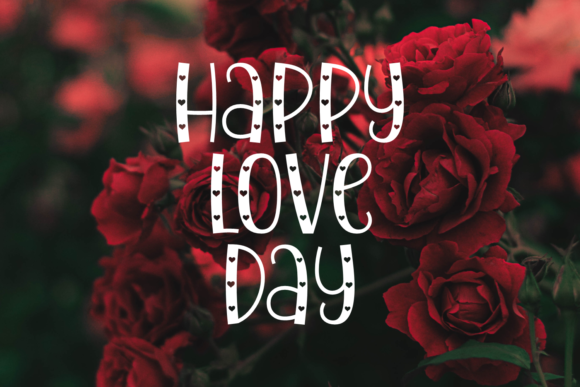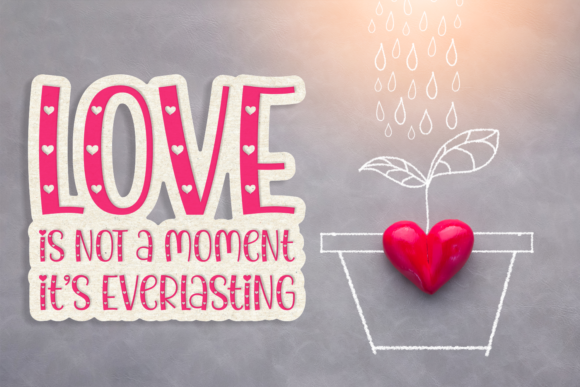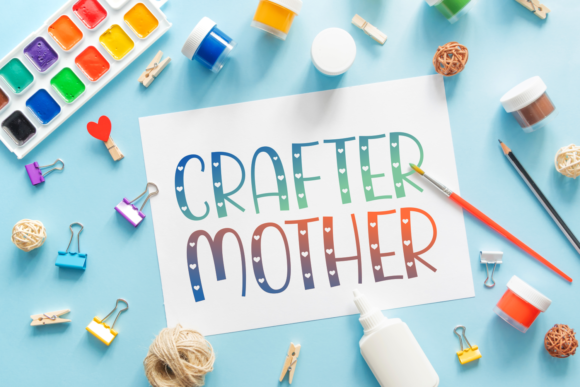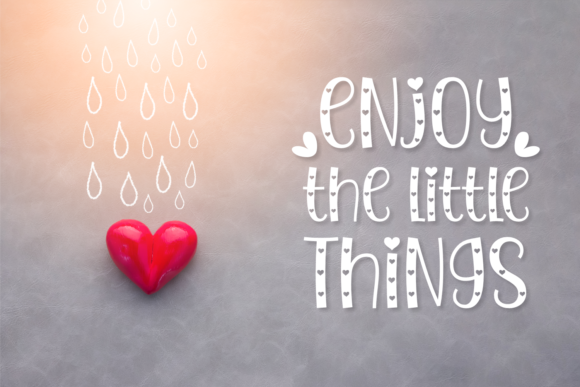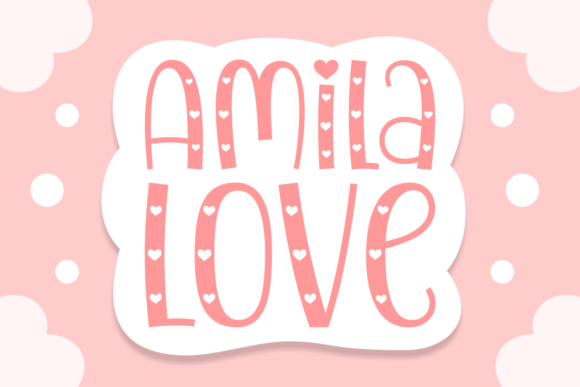
Introducing the Amila Love Font: A Sweet Addition to Your Design Projects
Are you looking for a font that will add a touch of love and sweetness to your design projects? Look no further than the Amila Love Font! This adorable display font is perfect for creating Valentine’s Day crafts, Mother’s Day designs, and any other project that requires a dash of romance and whimsy.
What Makes the Amila Love Font So Special?
The Amila Love font is a unique and charming display font that features cute heart elements and smooth lines. Its playful and feminine design makes it ideal for a variety of creative projects, from DIY crafts to digital designs. Whether you’re a designer, crafter, or DIY enthusiast, this font is sure to capture your heart.
Perfect for Valentine’s Day and Mother’s Day Projects
Valentine’s Day and Mother’s Day are just around the corner, and the Amila Love font is the perfect addition to your holiday designs. Use it to create sweet and sentimental projects, such as:
- Valentine’s Day cards and gift tags
- Mother’s Day posters and social media graphics
- Cute and colorful DIY crafts, such as paper flowers and decorations
- Personalized gifts, such as customized mugs and tote bags
Tips for Using the Amila Love Font in Your Designs
Here are a few tips for using the Amila Love font in your designs:
- Pair it with other fonts: The Amila Love font is a display font, so it’s best used in moderation. Pair it with other fonts, such as a clean sans-serif font, to create visual interest and hierarchy.
- Experiment with colors: The Amila Love font looks great in a variety of colors, from bright and bold to soft and pastel. Experiment with different colors to find the perfect look for your project.
- Add embellishments: The Amila Love font features cute heart elements, but you can also add other embellishments, such as flowers or stars, to give your design an extra touch of whimsy.
Why Designers and Crafters Love the Amila Love Font
So, why do designers and crafters love the Amila Love font? Here are a few reasons:
- It’s adorable: The Amila Love font is undeniably cute and charming, making it perfect for projects that require a touch of sweetness.
- It’s versatile: The Amila Love font can be used in a wide range of projects, from digital designs to DIY crafts.
In conclusion, the Amila Love font is a sweet and charming display font that’s perfect for designers and crafters who want to add a touch of love and whimsy to their projects. With its cute heart elements, smooth lines, and compatibility with cutting machines, this font is sure to capture your heart. So why wait? Download the Amila Love font today and start creating your own sweet and sentimental designs!